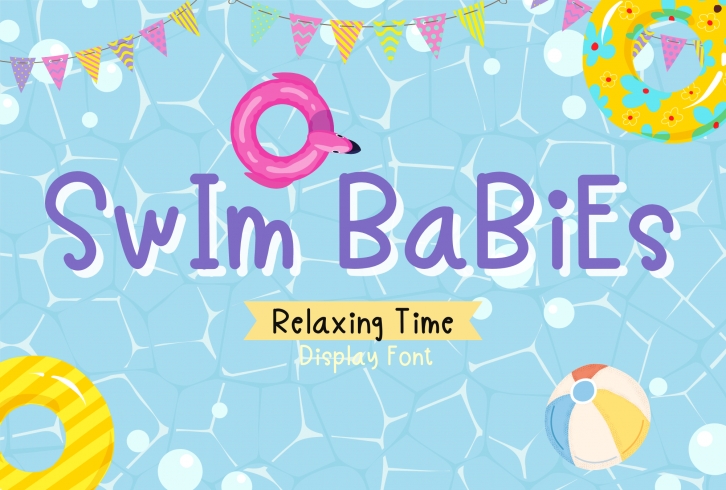
Swim Babies looks cute, friendly and neat display font. Whether you are using it for cartoon-related designs, children’s games, quotes, titles, brand names, book covers, posters, or just any creation that requires a touch of beauty, this font is a great choice.